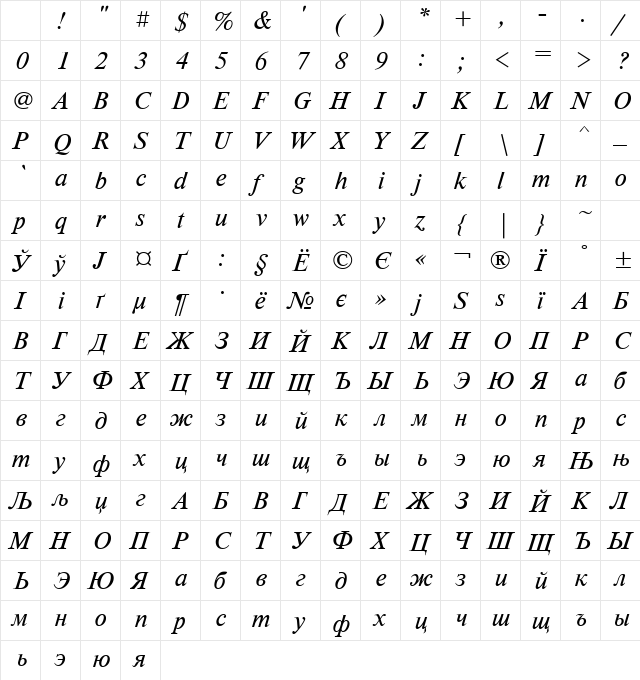
NewtonC is a composed and adaptable typeface that performs quietly and consistently across a wide range of design contexts. The slanted form adds forward momentum and visual energy.
Pro Tip: Use NewtonC for emphasis, pull quotes, and subheadings where its slanted energy can add rhythm to the layout.